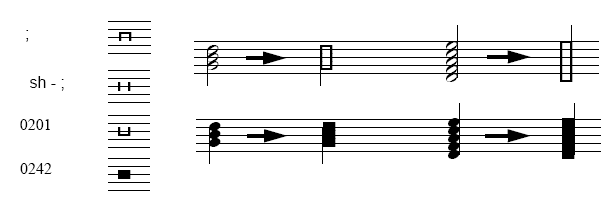
These noteheads allow for a quick and consistent way to input tone-clusters. After inputting notes, use the Special Tools Tool to change the noteheads. Engraver Font Set and Engraver Font Extras Only.
Indeterminate
Determinate